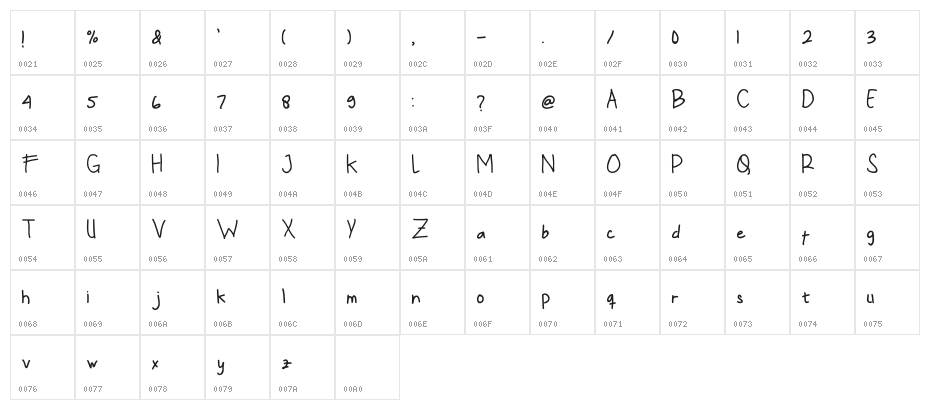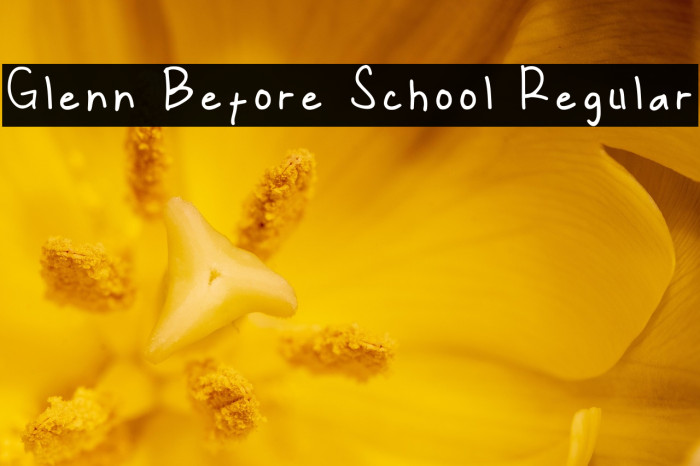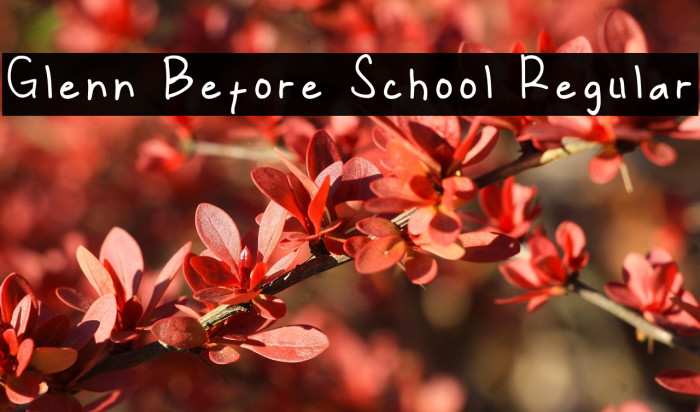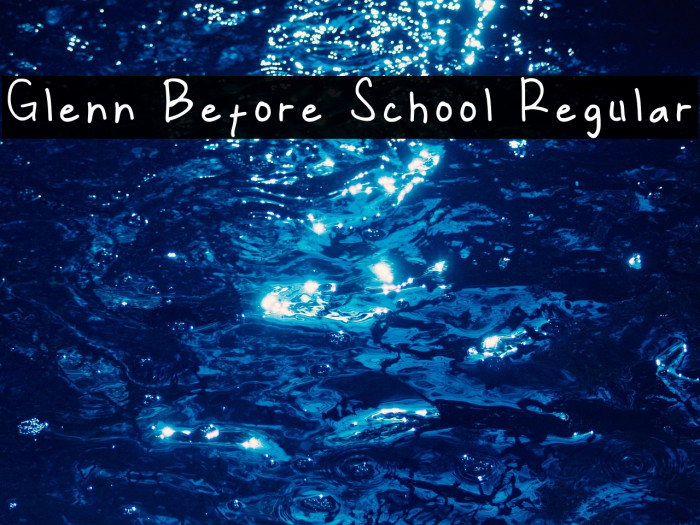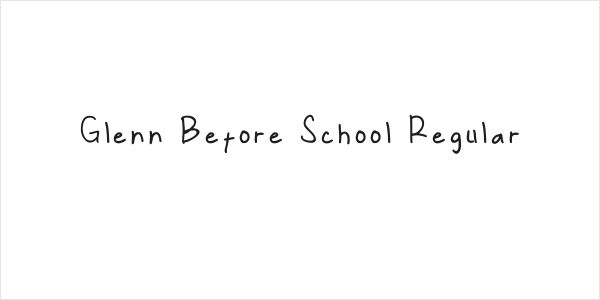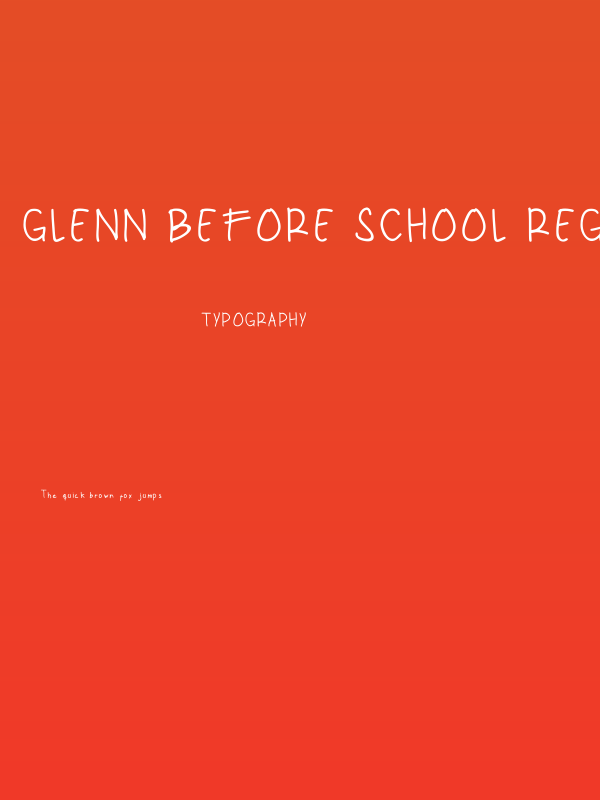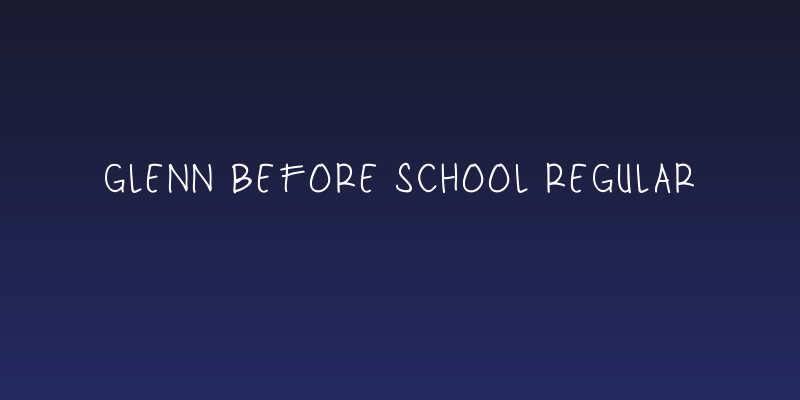
Glenn Before School Regular Font
Glenn Before School Regular Description
This font exudes a playful and casual handwritten style, characterized by its uneven strokes and slightly irregular letterforms. The uppercase letters are tall and narrow, while the lowercase letters maintain a consistent height, giving the font a cohesive yet informal appearance. The numbers and special characters follow the same whimsical style, making it ideal for projects that require a personal touch. The overall look is friendly and approachable, suitable for creative and informal contexts.
| Proposed Projects | Ideal for children's books, greeting cards, informal invitations, and creative branding projects. |